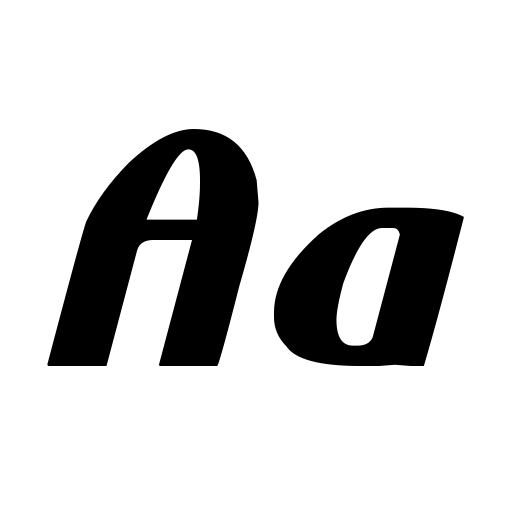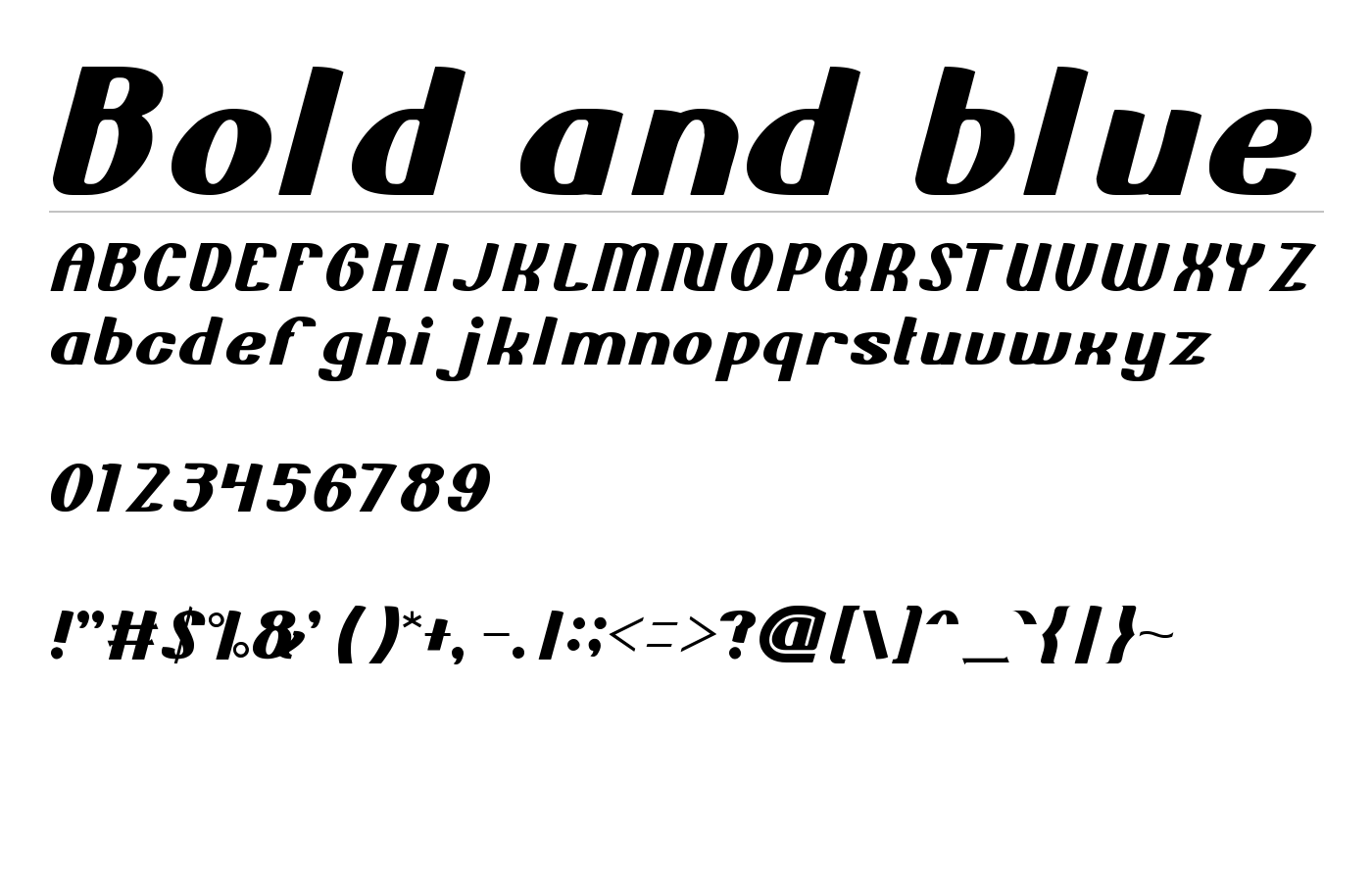
Bold and blue is a bold, condensed sans serif font with a dynamic italic slant that lends energy and movement to its letterforms. Its smooth, slightly rounded strokes and medium contrast create a modern, playful yet strong personality that works well for headlines, branding, and designs needing a confident, eye-catching style. This font shines in contexts where boldness and a contemporary vibe are key, such as logos, posters, and editorial titles.
Bold and blue Font
About Bold and blue Font
| Font family | Bold and blue Font |